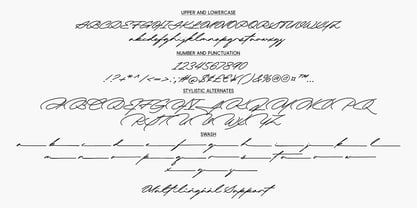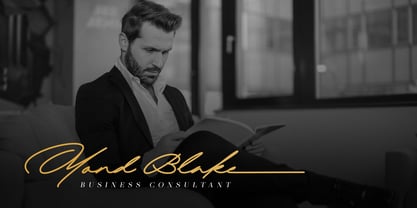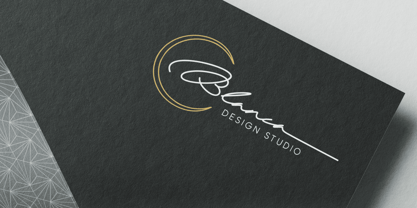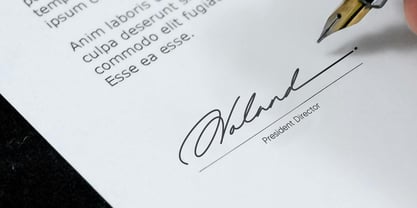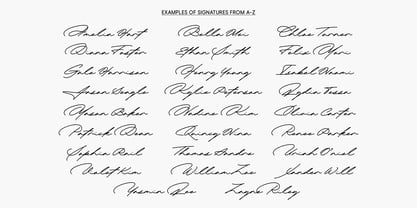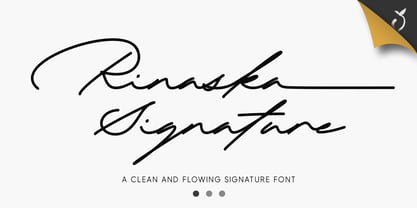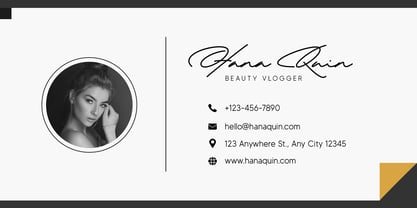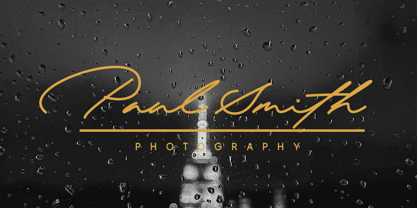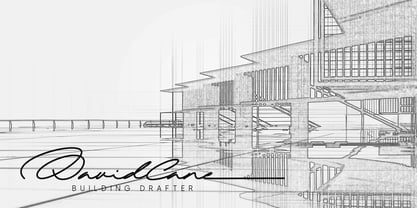
Rinaska Signature
by Lemonthe
The Rinaska Signature Font Family was designed by Dwi Ahidian and published by Lemonthe. Rinaska Signature contains 1 styles.
Rinaska Signature is a signature font that combines clean lines with a natural and elegant flow. Designed with fine details, this font creates a modern yet professional impression. Equipped with stylistic sets and swashes, Rinaska Signature offers flexible style variations to support creative design. This font is perfect for various needs such as branding, invitations, logos, watermarks, digital signatures, or other creative projects. With its realistic appearance and graceful handwriting style, this font adds an authentic and charming touch.
"Lemonthe is a type foundry operated by Dwi Ahidian, a letter enthusiast who enjoys calligraphy and loves experimenting with letter forms. Lemonthe provides a captivating collection of typefaces, each carrying a creative and unique experimental touch, meticulously crafted by hand. Dedication to detail ensures that some typefaces emanate a deep and serious aesthetic, while others showcase a more playful and creative side."